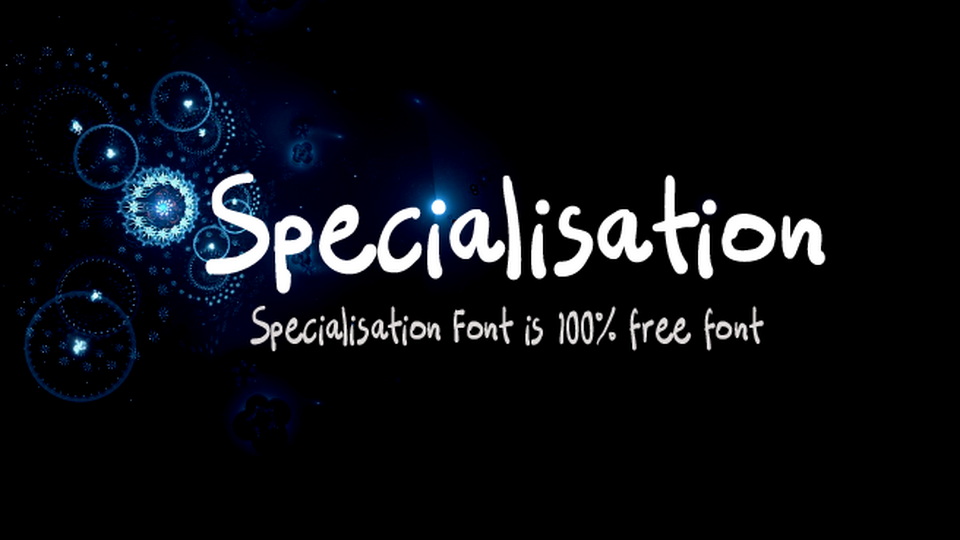
Download Specialisation font, a simple and casual handwritten typeface with a natural feel. Specialisation font is perfect for notes, quotes, cards, social media, organic packaging, menu and other design projects that need a personal touch.
Designer: Steven Joss